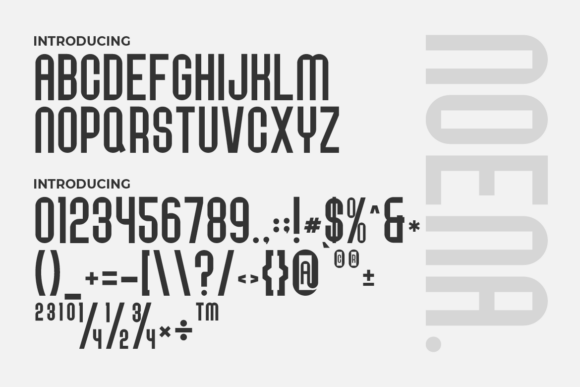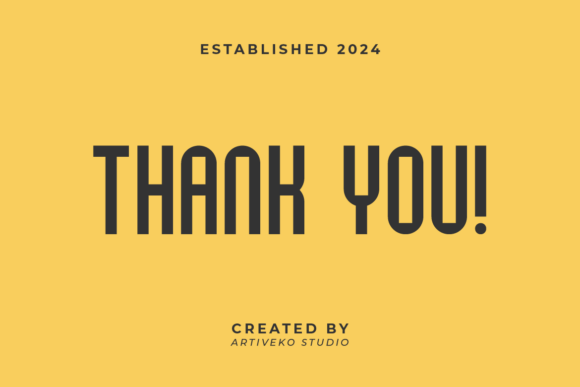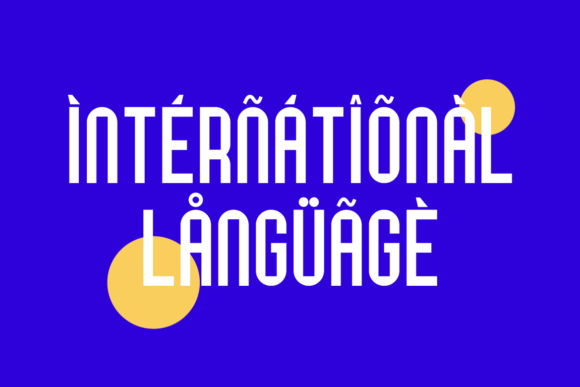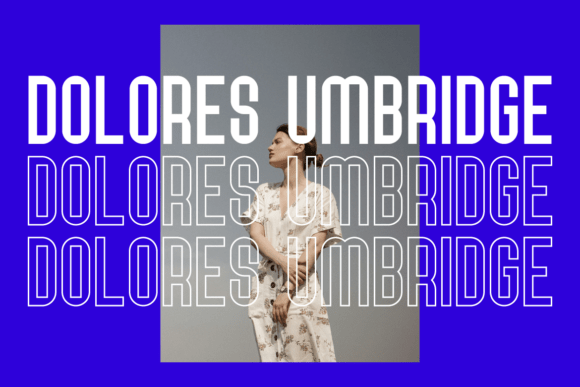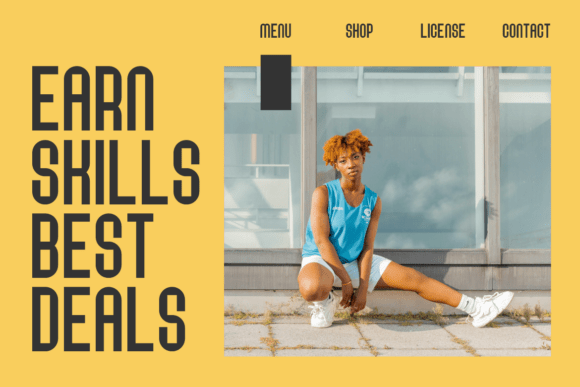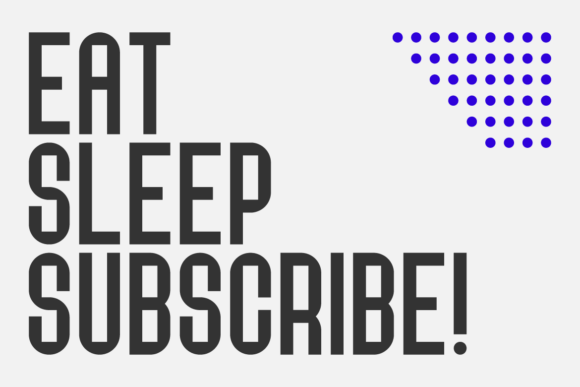
Introduction to Noena Font
You know that moment when you’re working on a creative project, and you just can’t seem to find the right font to tie everything together? You browse through endless options, but nothing seems to fit the vibe you’re going for. Well, we’re here to tell you that your search might just be over – meet the Noena Font, a clean and contemporary sans serif font that’s about to become your new best friend.
Noena Font is more than just a pretty face; it’s a versatile design resource that’s perfect for branding, editorial layouts, packaging, social media graphics, and website design. With its smooth curves, geometric balance, and refined letterforms, Noena is a high-quality font that’s sure to elevate your designs to the next level. And the best part? It’s available for free download, complete with a transparent background, making it easy to use in a variety of creative projects.
Key Features of Noena Font
- High-quality design resource suitable for various creative projects
- Unique and elegant font style, perfect for adding a touch of sophistication to your design
Honest Review: Noena Font
Noena Font is a beautifully crafted, free download that’s perfect for any creative project. Its elegant design makes it a valuable design resource for professionals and hobbyists alike.
- ✨ High-quality font with a transparent background, allowing for seamless integration into various design elements.
- ✨ Perfect for use in headings, titles, or as a main font for body text due to its clean and sophisticated appearance.
- ✨ Extremely versatile and suitable for a wide range of creative projects, from digital designs to print materials.
- ⚠️ May not be ideal for projects requiring a bold, attention-grabbing font due to its delicate nature.
- ⚠️ Limited customization options, which may be a drawback for designers seeking a high degree of control.
Overall, Noena Font is an excellent addition to any design toolkit. Its high quality and versatility make it a great choice for a variety of creative projects. While it may not be suitable for every project, it’s a valuable resource for designers seeking a clean and elegant font.
The Noena Font is commonly used in branding, marketing materials, and digital design. Its high-quality design and elegant style make it a popular choice for designers and creatives.